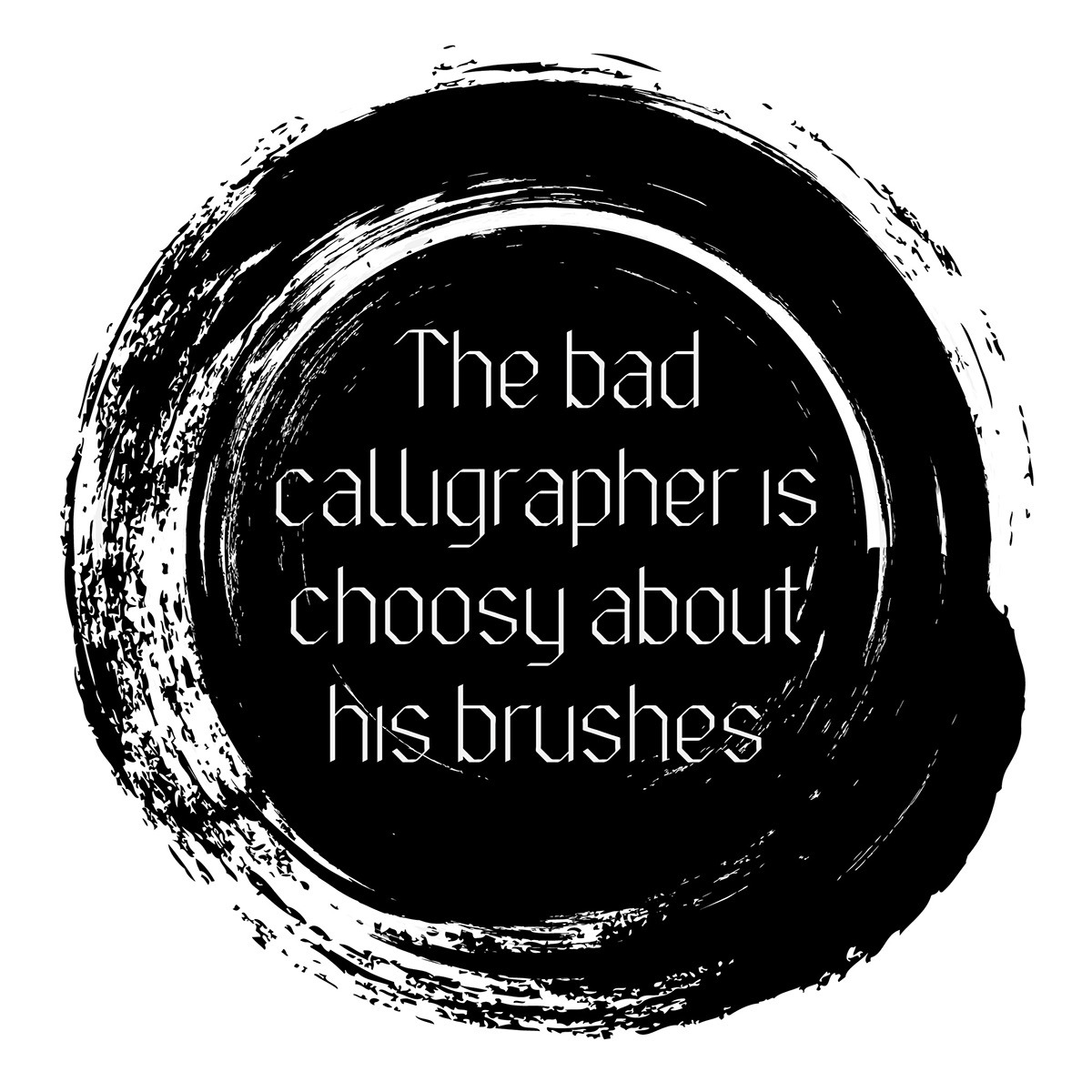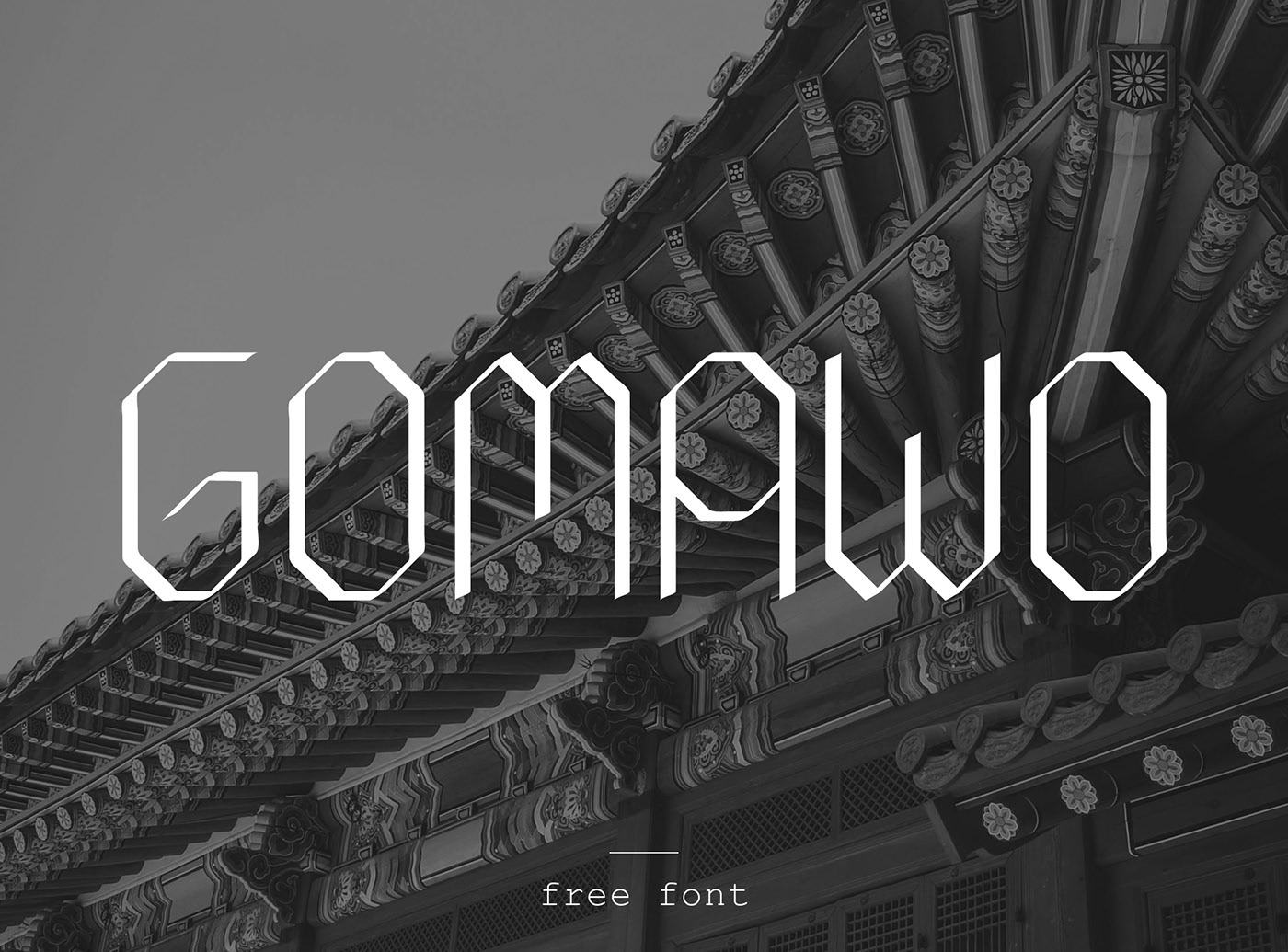
Gomawo Display Font
This typeface is inspired from geometry and calligraphy brush. With a futuristic edge, geometric corners, perfect for many project: fashion, magazines, logo, branding, photography, quotes, blog header, poster, advertisements, postcard, book, websites, etc.